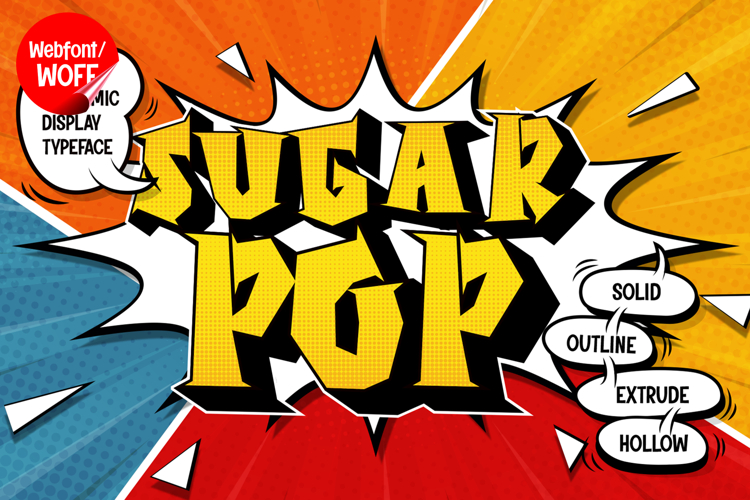
Sugar Pop | 3D Comic Layered Webfont for Fun Websites
Sugar Pop is a 3D comic layered webfont designed to bring vibrant energy, playful charm, and bold personality into modern website design. Inspired by comic book typography and colorful pop-style lettering, this font features thick shapes combined with layered depth that create a lively and eye-catching visual effect. It is an excellent choice for projects that aim to deliver a fun and engaging user experience.
Sugar Pop includes a complete set of uppercase characters designed with bold comic-inspired forms. The letterforms are thick, rounded, and enhanced with layered 3D effects that add depth and dimension. These characteristics make it ideal for headlines, banners, hero sections, and featured content where a playful and high-impact style is needed.
In addition to letters, the font includes numbers and punctuation, allowing flexible usage across various parts of a website. It works well for promotional text, product highlights, children’s content, event announcements, and call-to-action sections. Each character maintains a consistent comic style, ensuring a cohesive and unified visual identity throughout the layout.
With multilingual support, Sugar Pop includes a wide range of accented characters, making it suitable for international websites and global audiences. This allows content to be displayed clearly across different languages while preserving the fun and colorful aesthetic.
The 3D comic layered style of Sugar Pop makes it especially suitable for kids’ websites, entertainment platforms, creative portfolios, gaming interfaces, and vibrant branding projects. Its bold and cheerful design adds personality and excitement, helping websites stand out in visually competitive environments. The layered effect enhances depth and creates a more dynamic and interactive feel.
Despite its bold and decorative appearance, Sugar Pop is designed with readability in mind. The spacing and proportions are carefully balanced to ensure clarity, particularly in display sizes. This makes it effective for impactful headings and short content elements where both style and usability are important.
Sugar Pop is a webfont that combines comic-inspired creativity with layered depth and modern digital performance. Its thick shapes, dimensional style, and playful character create a distinctive typographic presence that enhances website design. For projects that require a fun, energetic, and visually engaging font, Sugar Pop offers a lively and effective solution.